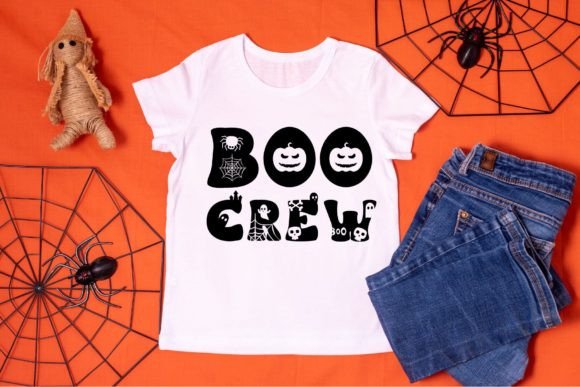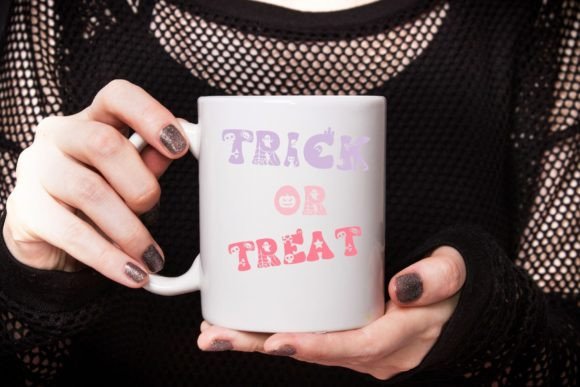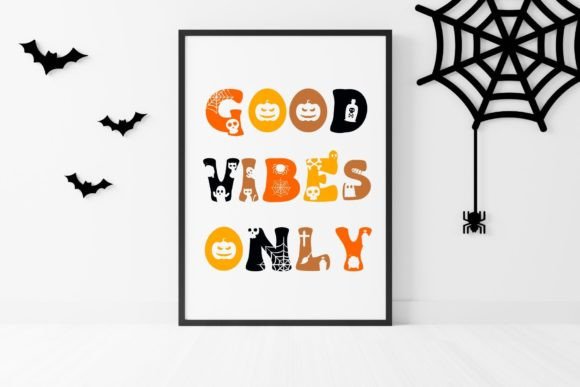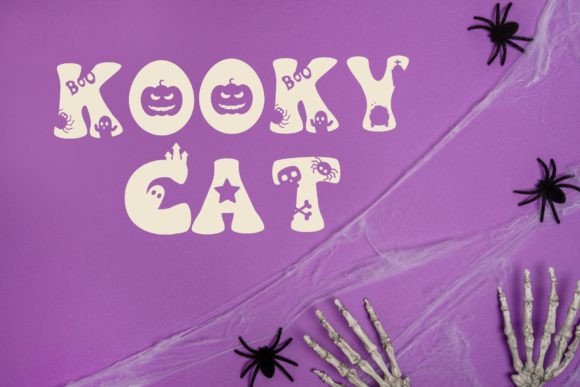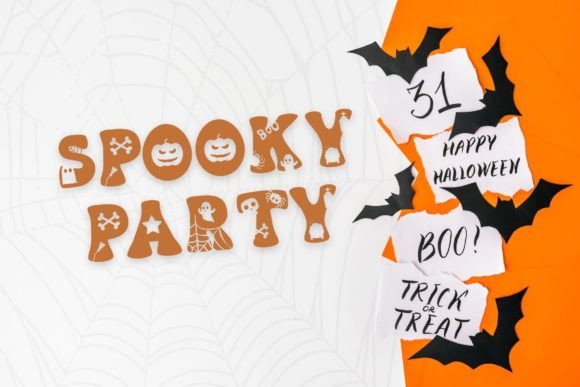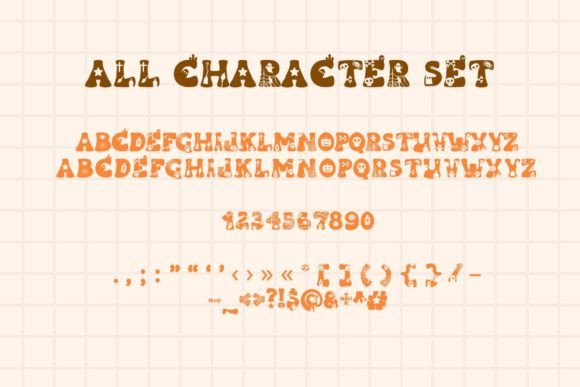
Introduction to Cute Spooky Font
Cute Spooky is a retro Halloween display font.
This quirky Halloween font makes it the perfect choice for various projects, such as blog posts, logos, branding, ads, invitations, greeting cards, planners, photo albums, decorations, and much more Add it to any of your designs, and enjoy the results.